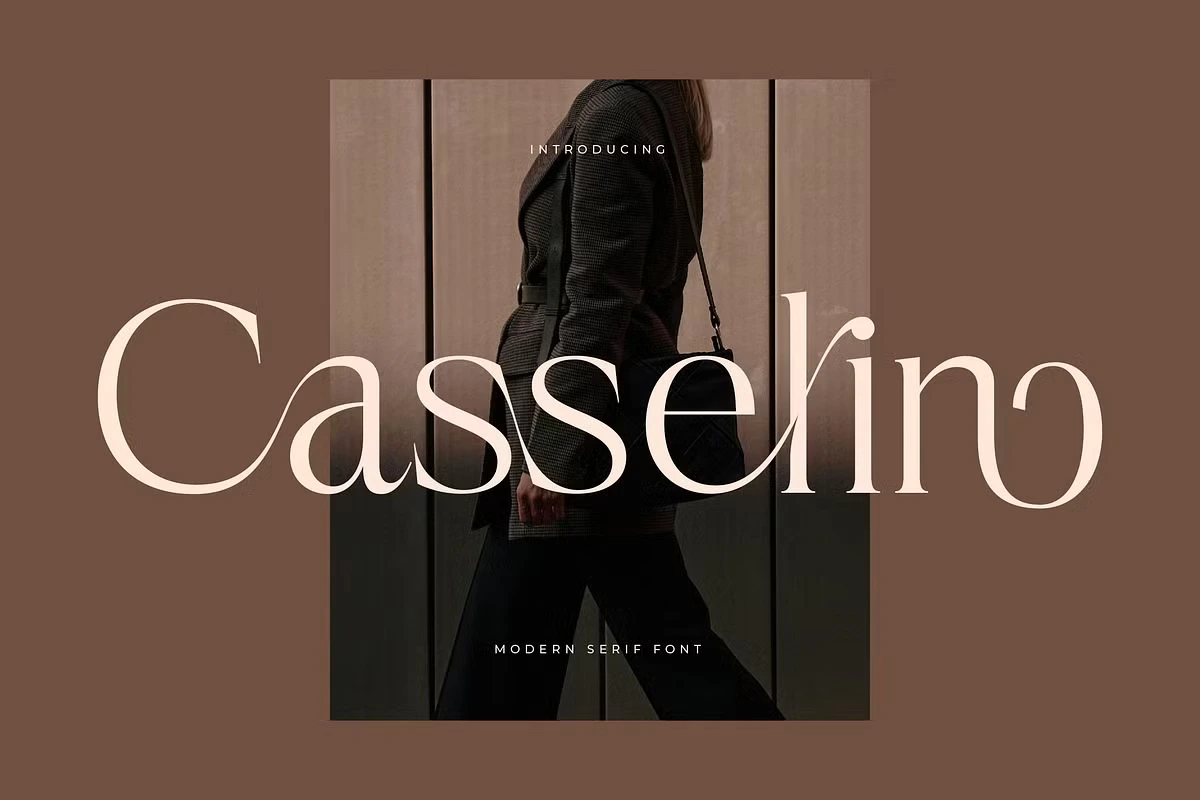
Casselin is a sophisticated and modern serif typeface that blends elegance with contemporary design. Its well-balanced proportions and clean, refined lines make it a perfect choice for various creative projects. Whether used in editorial layouts, branding, or logos, Casselin brings a sense of professionalism and timeless charm. The sleek letterforms enhance readability while maintaining a distinctive and stylish appearance, making it a versatile option for designers seeking both functionality and aesthetic appeal.
Beyond its visual appeal, Casselin stands out for its adaptability. It seamlessly integrates into both digital and print media, ensuring a polished and high-end look across different platforms. From magazine headlines to corporate branding, this typeface delivers a touch of class and modernity. Its versatility allows designers to experiment with different styles while maintaining a cohesive and sophisticated visual identity.